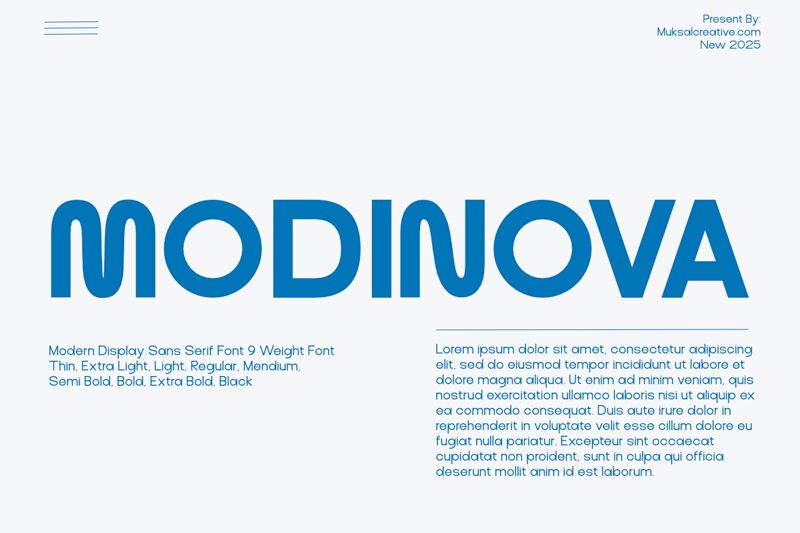
Modinova font by Muksal Creative is a free sans serif font that’s all about sleekness, modernity, and contemporary vibes. Drawing inspiration from geometric shapes, the font carves out a clean and structured appearance. Its minimalist design allows it to seamlessly integrate into various projects, giving them a futuristic and elegant touch.
In terms of use, think professional branding, advertising, packaging, websites, magazine texts, newspapers, and books. It also works in dictionaries, annual reports, web design, web applications, and mobile apps. You can further use it in signage, restaurant menus, logotypes, and other similar projects.